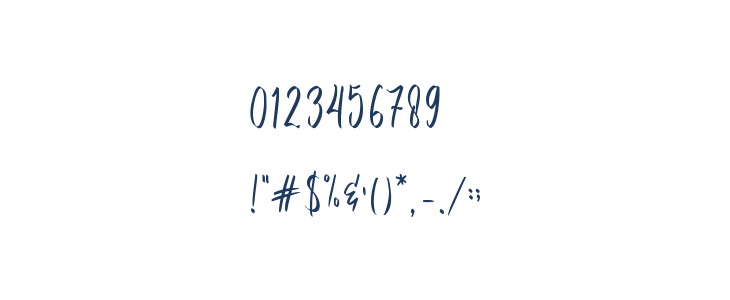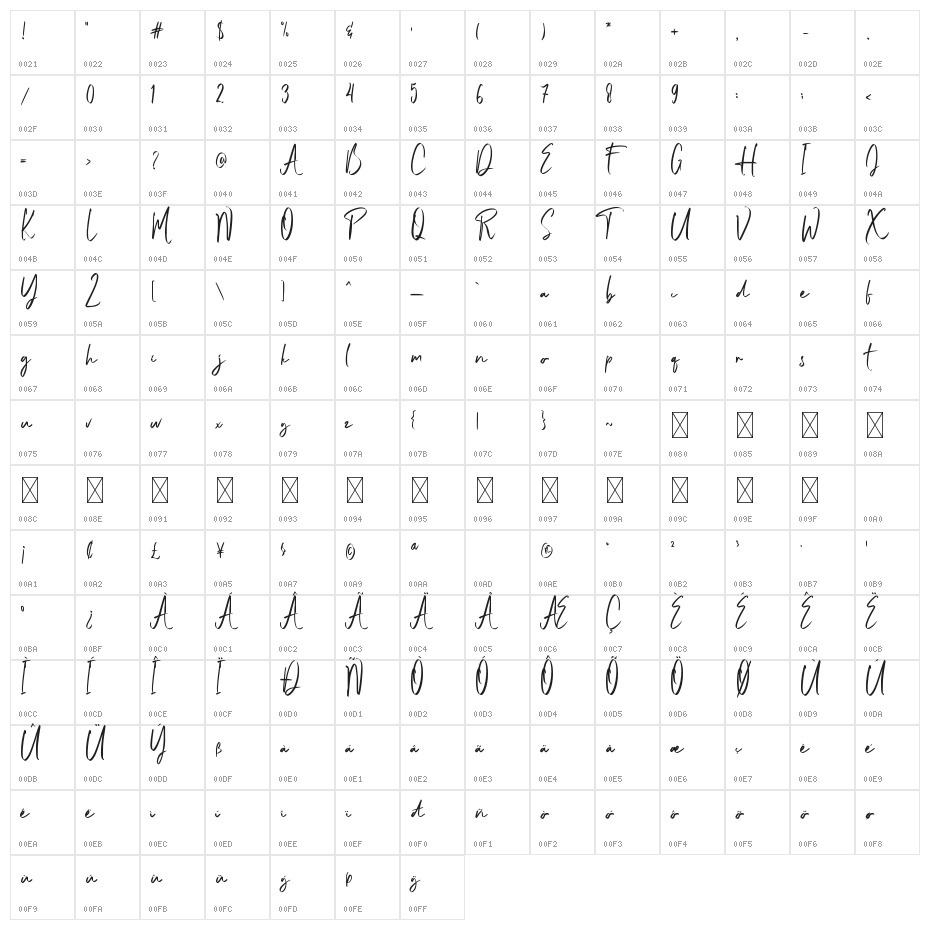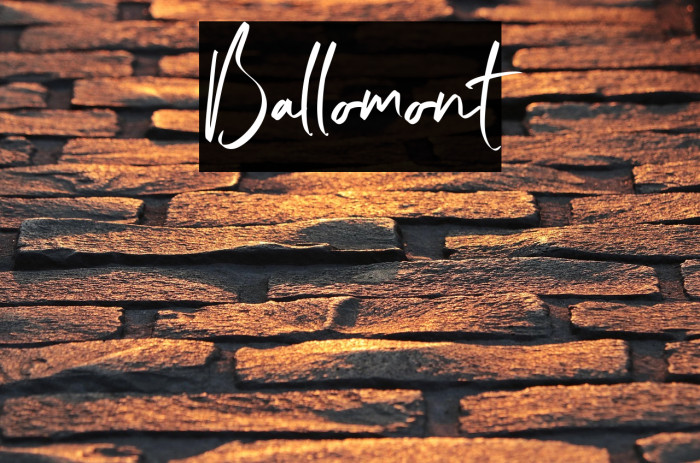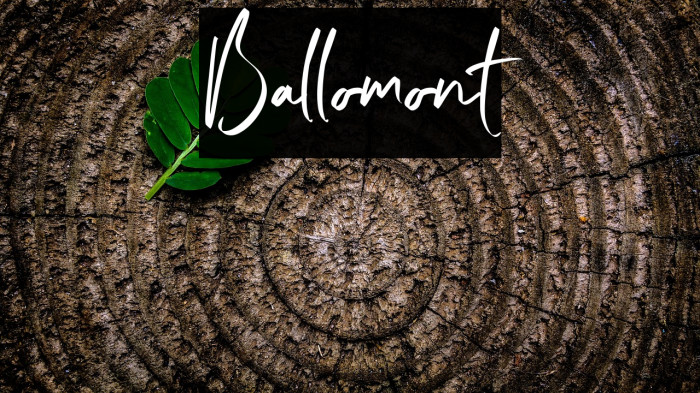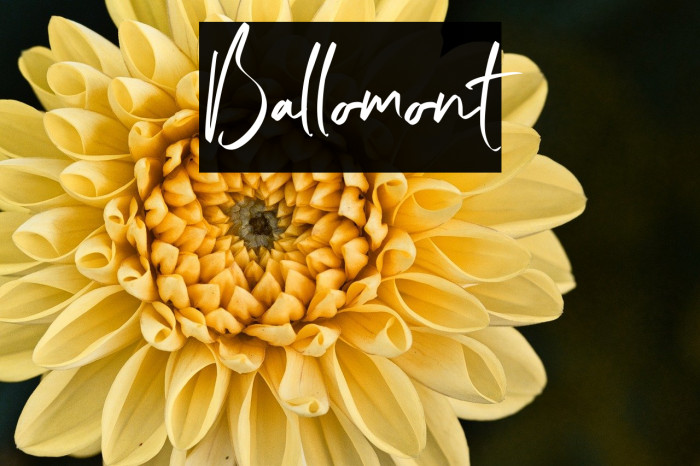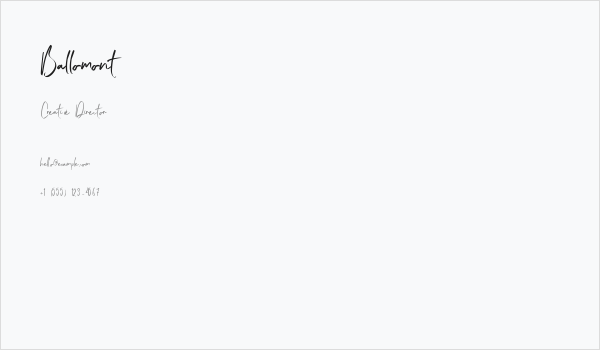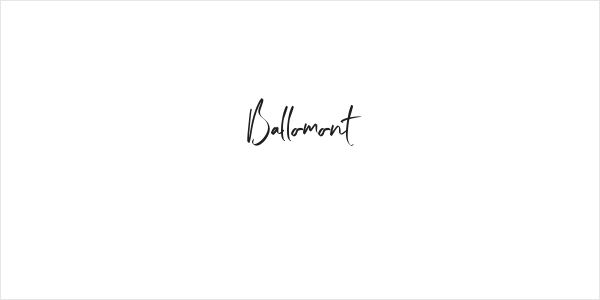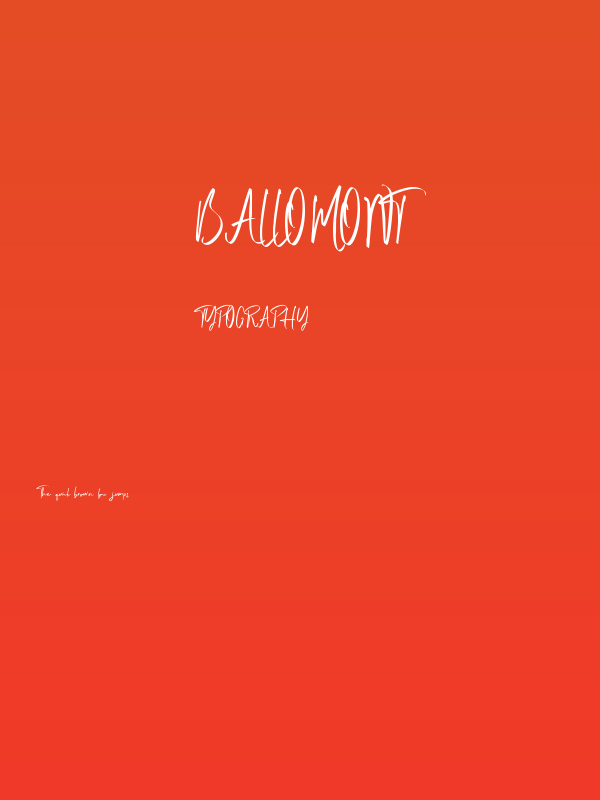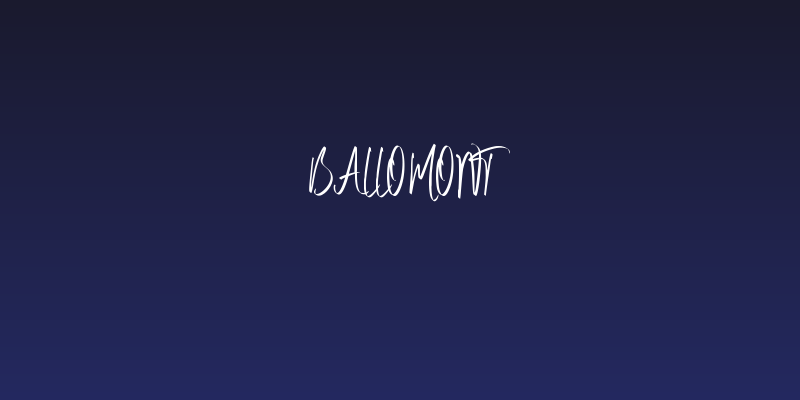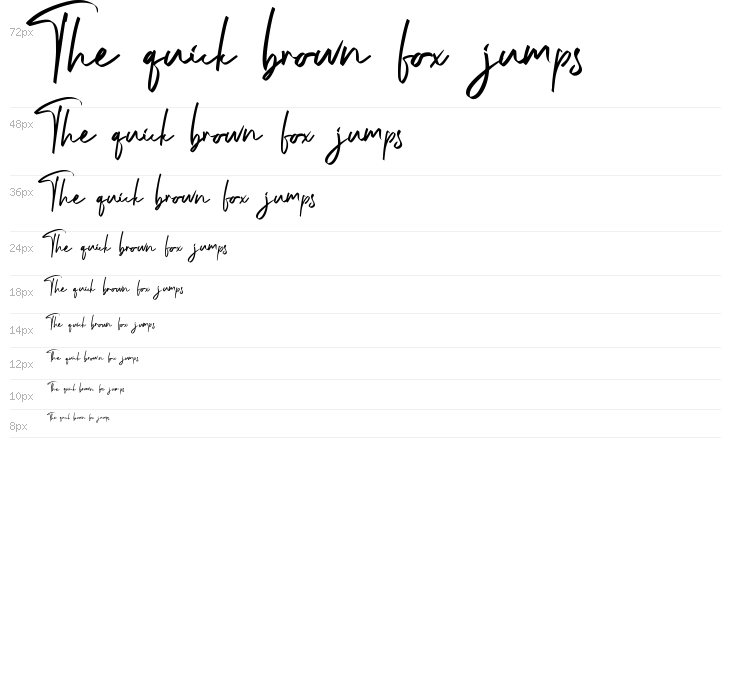
Ballomont Font
Ballomont Description
This font exudes a lively and expressive handwritten style, characterized by its fluid and dynamic strokes. The uppercase letters are tall and slightly condensed, with a playful yet elegant flair. The lowercase letters maintain a consistent flow, enhancing readability while retaining a personal touch. Numbers are clear and distinct, complementing the overall aesthetic. Special characters are thoughtfully designed, adding versatility to the font's application. The font's unique charm makes it suitable for creative projects that require a personal and artistic touch.
Use CaseLogos, Headlines, Invitations
Proposed ProjectsIdeal for wedding invitations, greeting cards, branding projects, and social media graphics.